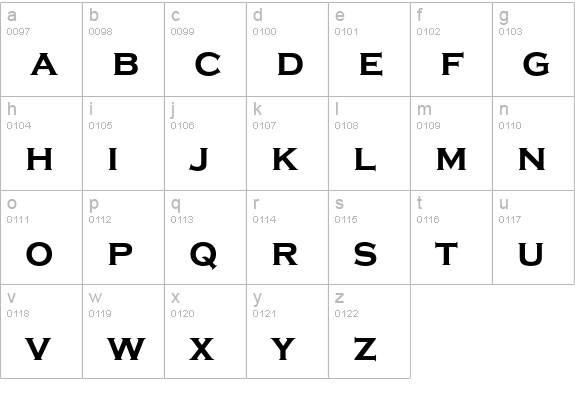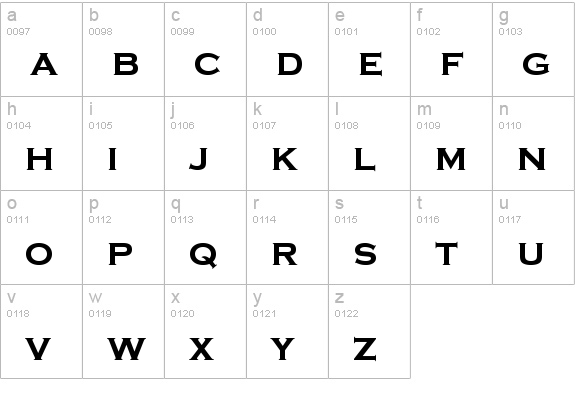
Copperplate T Bold is a strong, high-contrast variant in the Copperplate typeface family \xE2\x80\x94 well suited to headlines, attention-grabbing titles, and strong calls-to-action.
Copperplate T Bold is a timeless and elegant font that exudes sophistication and class. Its bold and distinct letterforms make it perfect for creating eye-catching headlines, titles, and logos. The font's clean lines and sharp angles give it a modern yet classic feel, making it versatile for a wide range of design projects. What sets Copperplate T Bold apart is its strong presence and commanding presence on the page. Whether used in print or digital media, this font demands attention and leaves a lasting impression on the viewer. Best of all, Copperplate T Bold is available for free download at FontsMarket.com. This means you can easily access this premium font without breaking the bank. So why wait? Add Copperplate T Bold to your font collection today and elevate your designs to the next level.